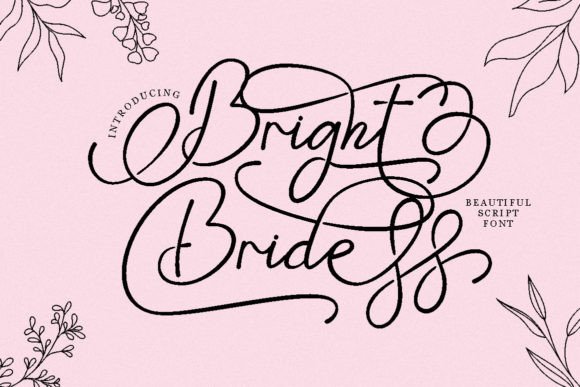
The Elusive Perfect Font: My Journey with Bright Bride
I’ll never forget the countless hours I spent searching for the perfect font for a wedding invitation project. My client wanted something elegant, sophisticated, and romantic, but I was coming up blank. That’s when I stumbled upon Bright Bride, a beautiful script font that stole my heart. In this article, I’ll share my experience with Bright Bride, its features, and how to make the most of it in your designs.
A First Impression: What I Love About Bright Bride
Bright Bride is a stunning script font that exudes elegance and sophistication. Here are some things I love about it:
• ✨ Elegant and flowing curves that add a touch of glamour to any design
• ✅ Clean lines and delicate strokes that create a sense of grace and charm
• 💕 Perfect for wedding invitations, branding projects, social media posts, and more
• 🎨 Versatile and can be paired with a variety of colors and design elements
The Not-So-Perfect: A Few Quirks and Limitations
While Bright Bride is an amazing font, it’s not without its quirks. Here are a few things to keep in mind:
• 🤔 May not be suitable for very small font sizes, as some details may get lost
• ⚠️ Limited availability of certain characters, such as ligatures and stylistic alternates
The Story Behind Bright Bride: Designer Inspiration
Bright Bride was designed with the intention of creating a font that exudes elegance and sophistication. The designer, inspired by classic calligraphy and modern typography, crafted a font that is both beautiful and versatile. With its flowing curves and delicate strokes, Bright Bride is perfect for adding a touch of glamour to any design project.
Is Bright Bride suitable for body text? While Bright Bride is a beautiful font, it’s best suited for headlines and titles. For body text, a sans-serif font may be more suitable.
In conclusion, Bright Bride is a stunning script font that is perfect for adding a touch of elegance and sophistication to any design project. With its flowing curves, delicate strokes, and versatile design, it’s a great addition to any font collection. Whether you’re a designer, crafter, or creative hobbyist, Bright Bride is sure to inspire your next project.